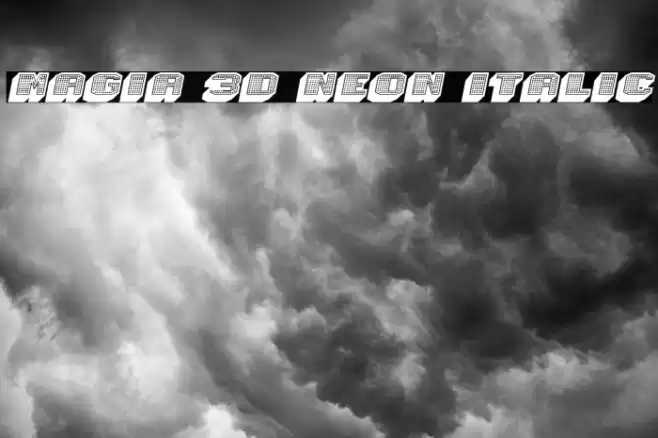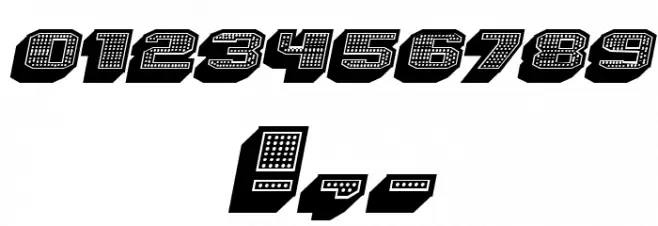
Magia 3D Neon Italic Font
Magia 3D Neon Italic Description
This font features a bold, three-dimensional design with a neon-like appearance, characterized by a dotted pattern within each character. The letters are italicized, giving them a dynamic and futuristic look. The 3D effect is enhanced by a shadow that creates depth, making the characters stand out. The uppercase and lowercase letters, along with numbers and special characters, maintain a consistent style that is both eye-catching and playful. This font is ideal for projects that require a modern and vibrant aesthetic.
A bold, 3D neon-style italic font with a dotted pattern and shadow effect from Uncategorized fonts.
- Proposed Projects: Ideal for neon signs, futuristic branding, video game titles, and event posters.